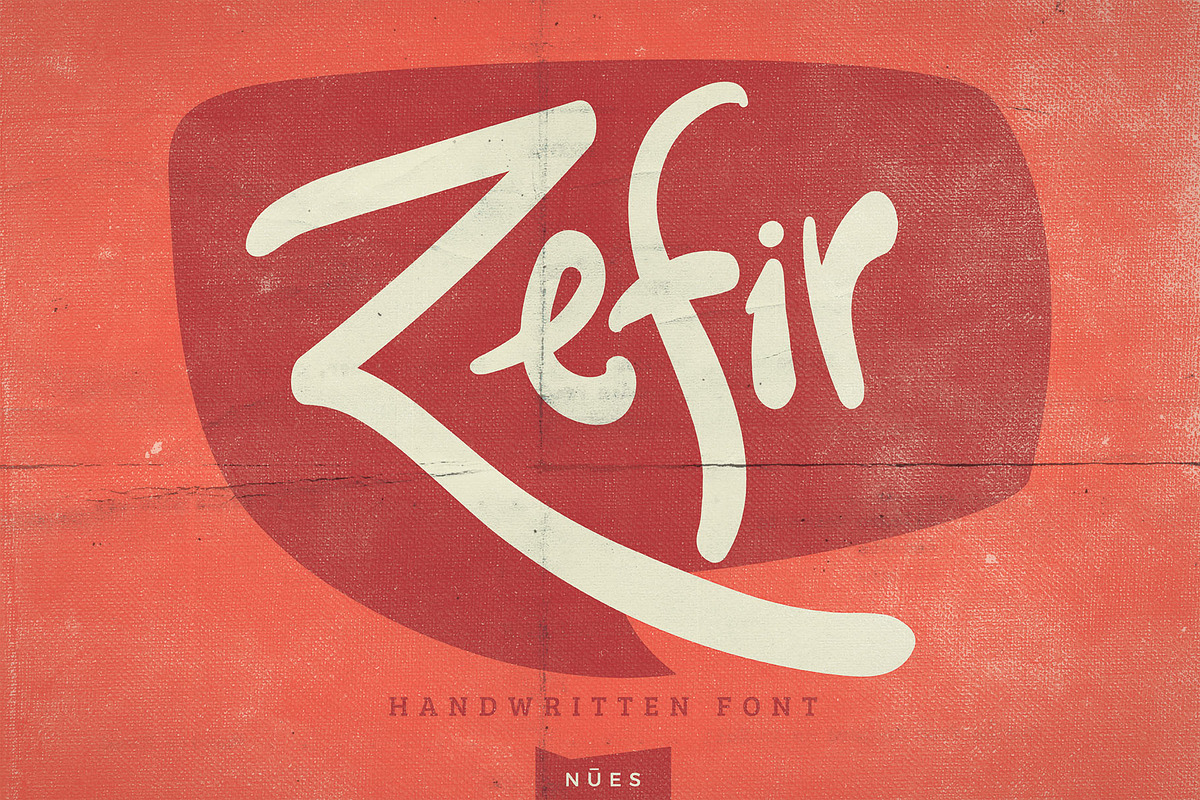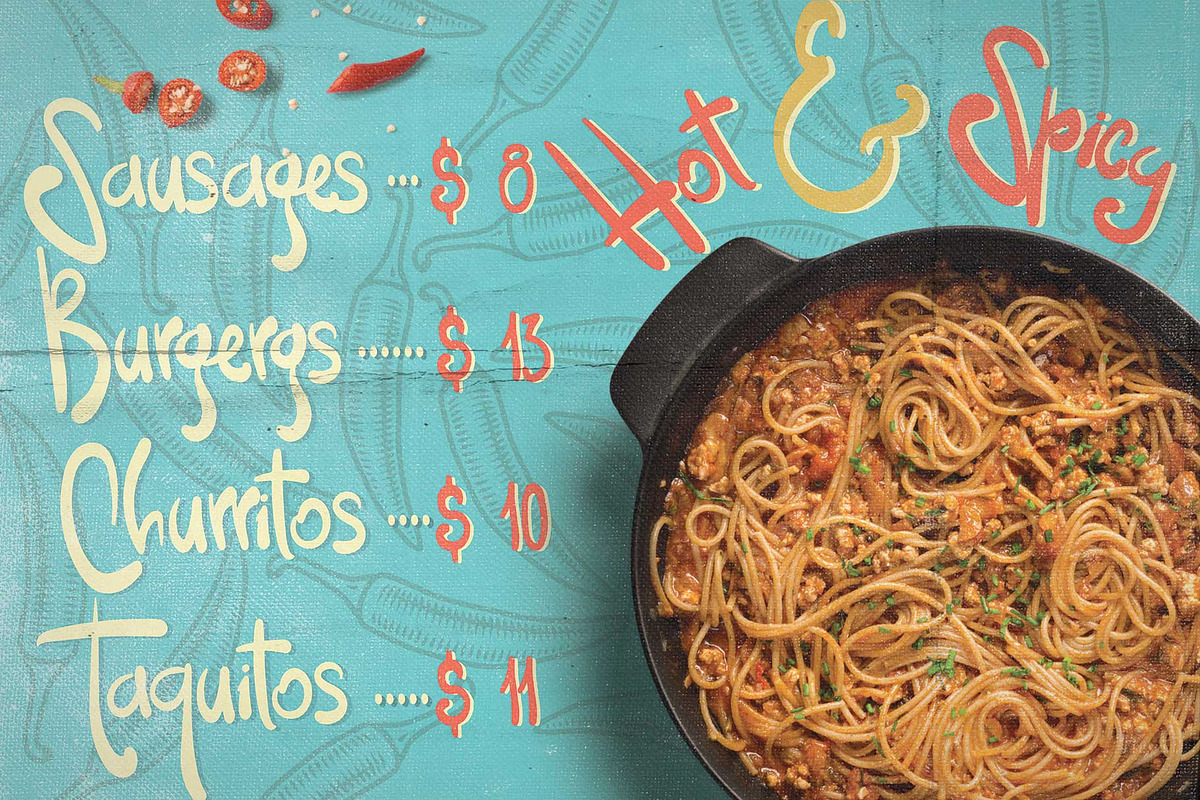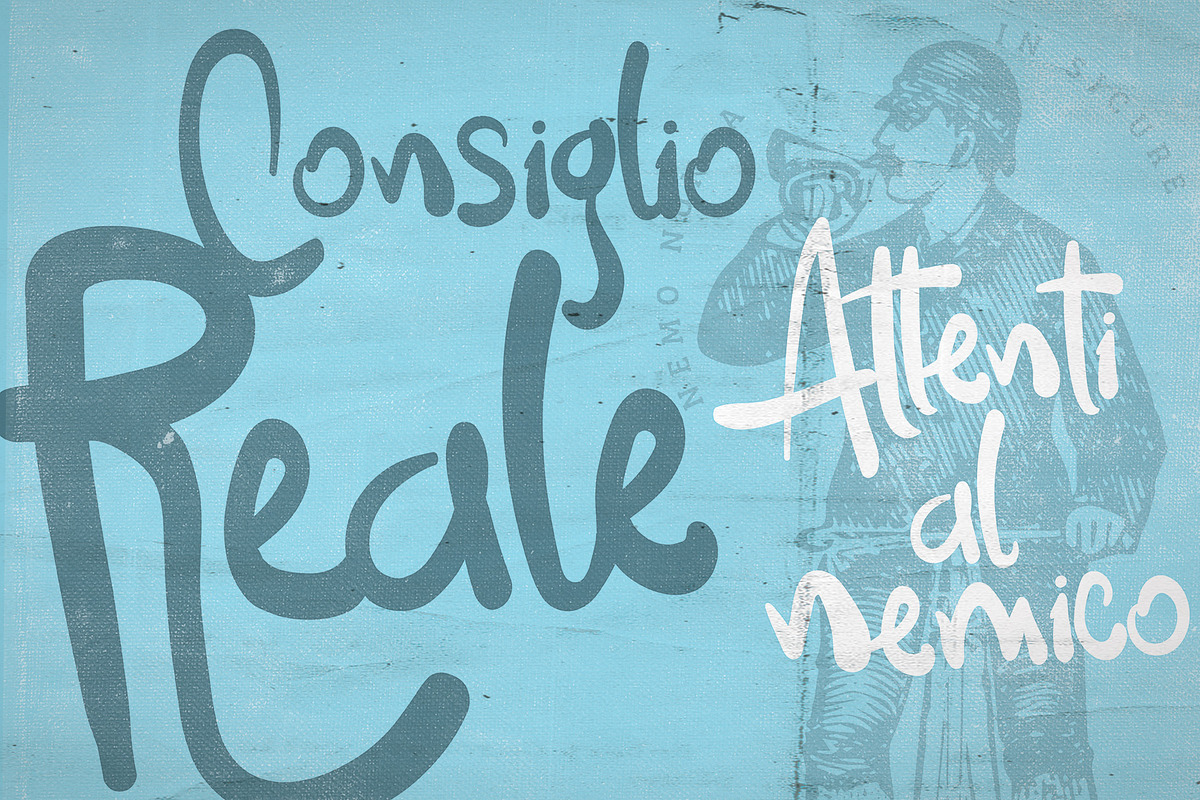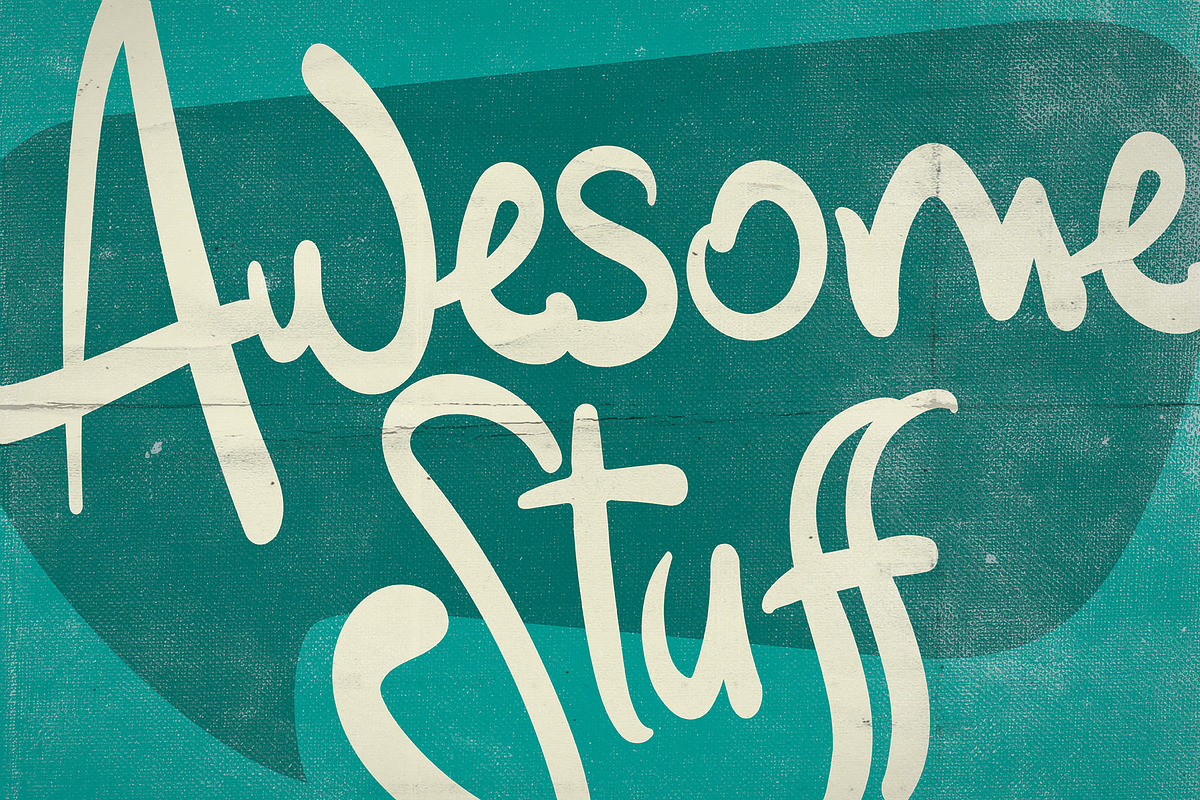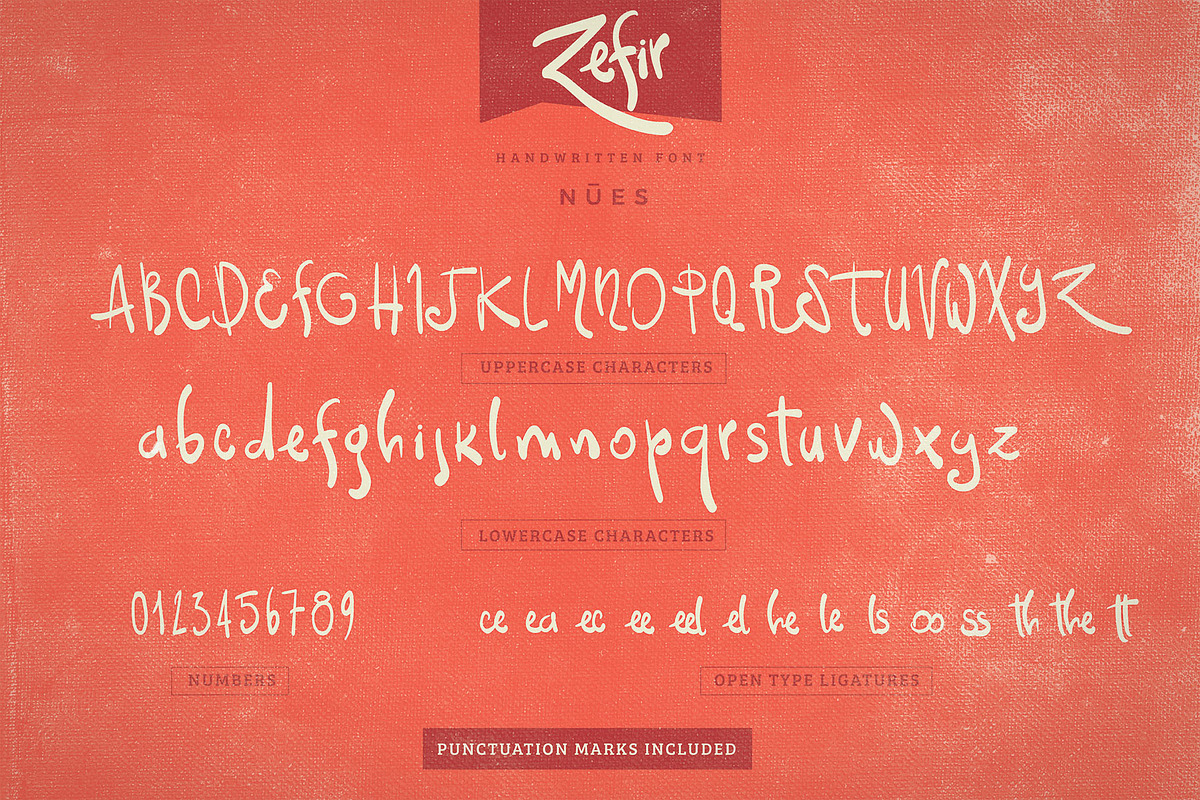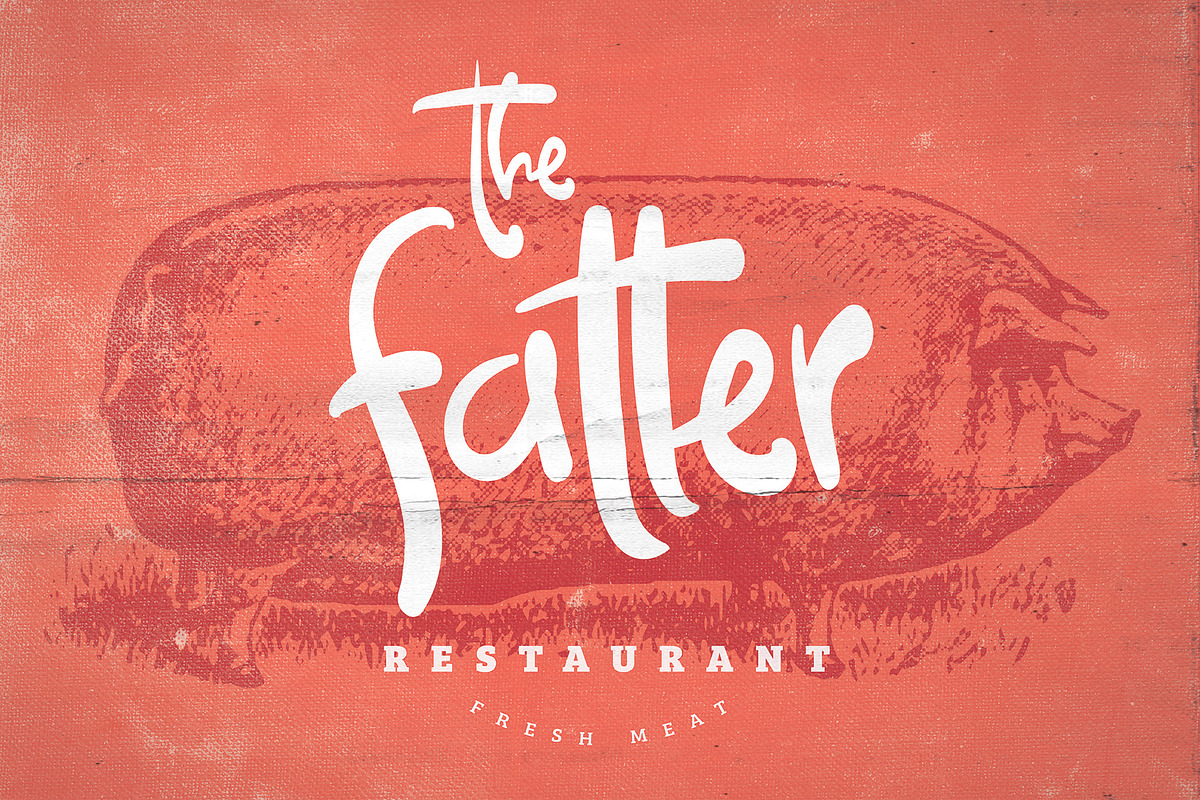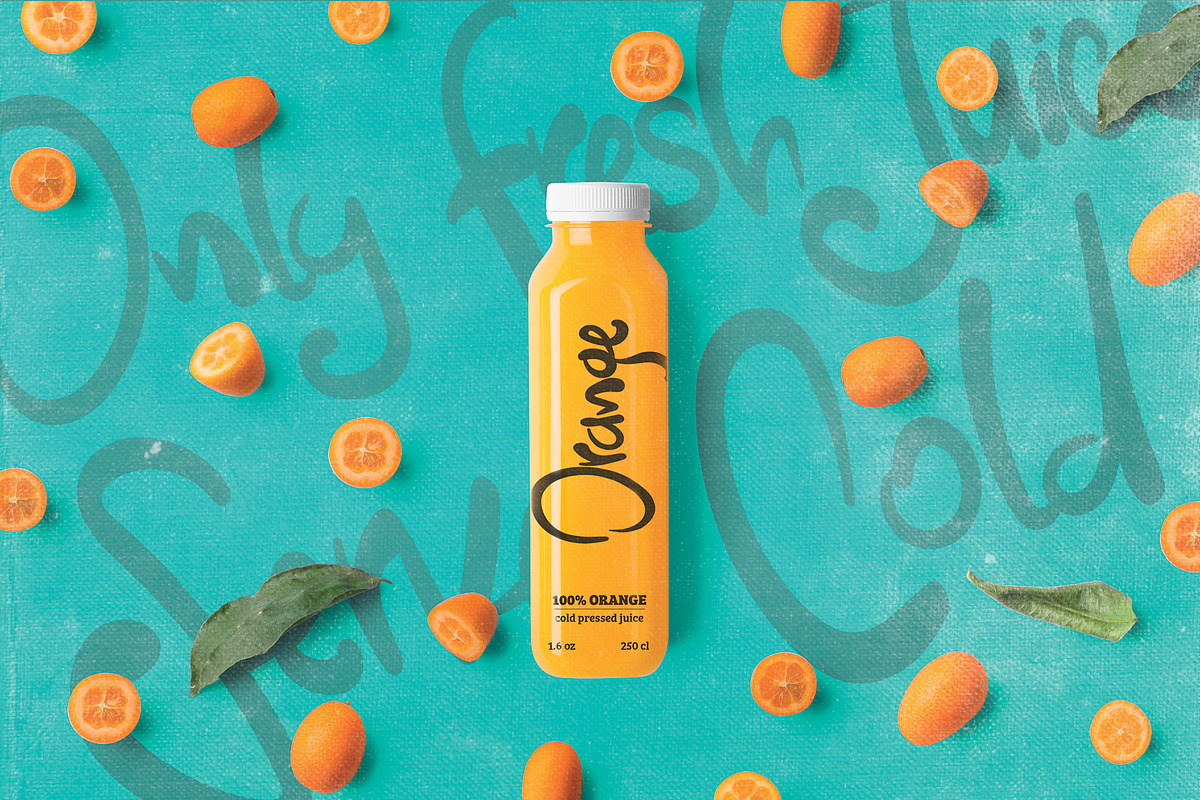
Zefir Script Font
Zefir a new font with a lot of character!
Zefir is a script typeface for every occasion. You can use it as a logo, badge, brochure, packaging, headline, poster, t-shirt/apparel, cards and wedding invitation.
Zefir Script Font by Nues Design fits naturally into Branding, posters, packaging, typography.